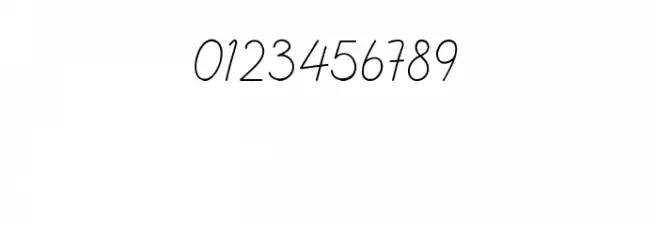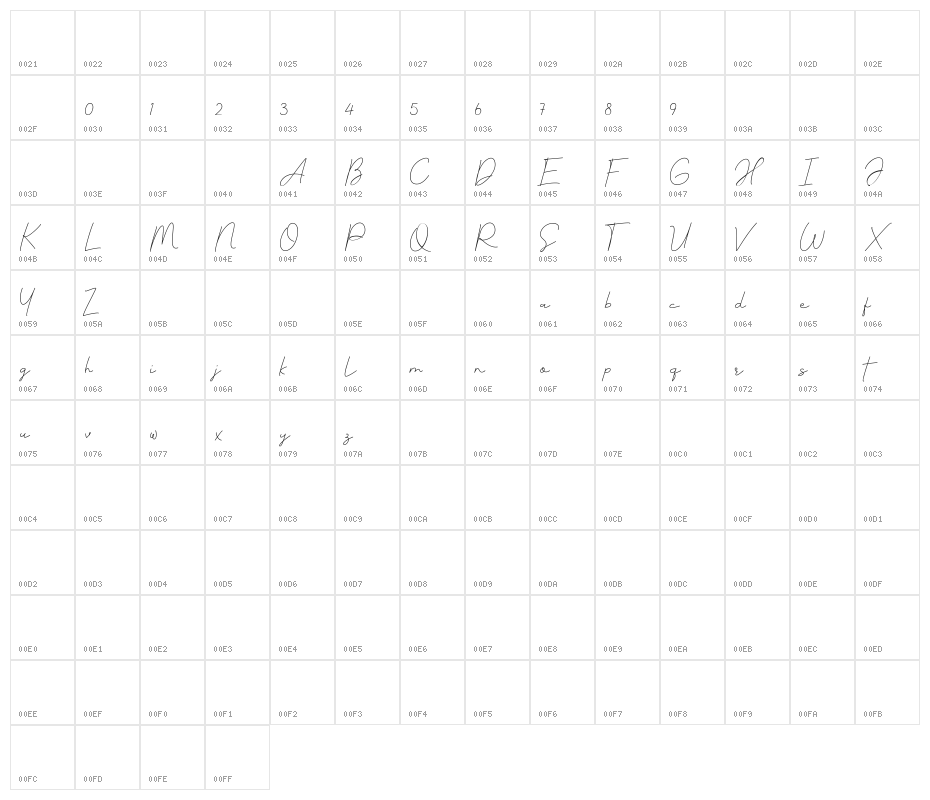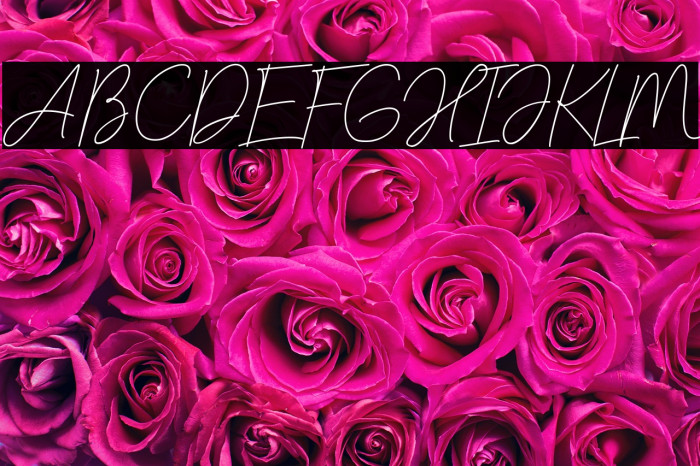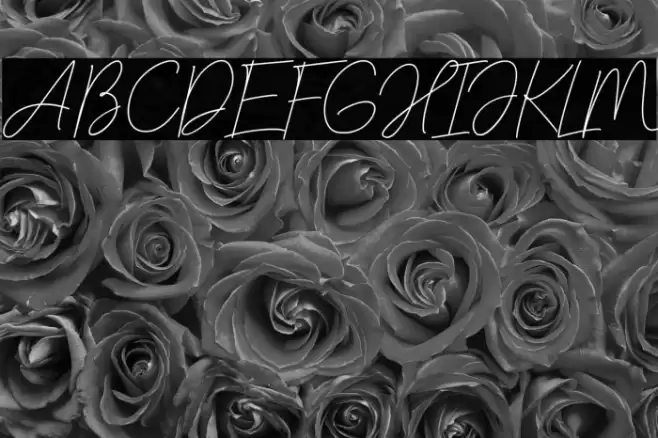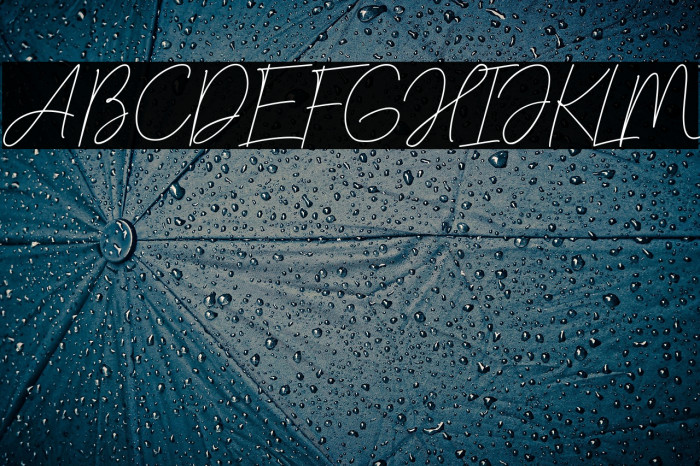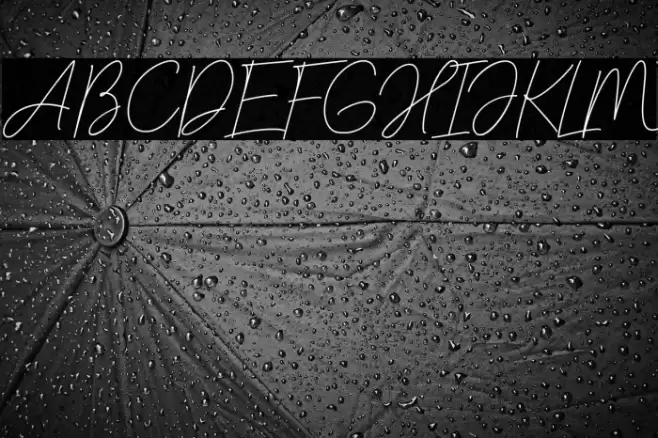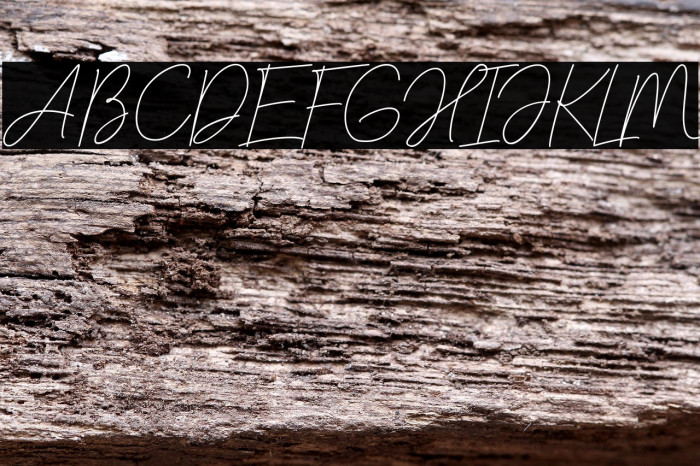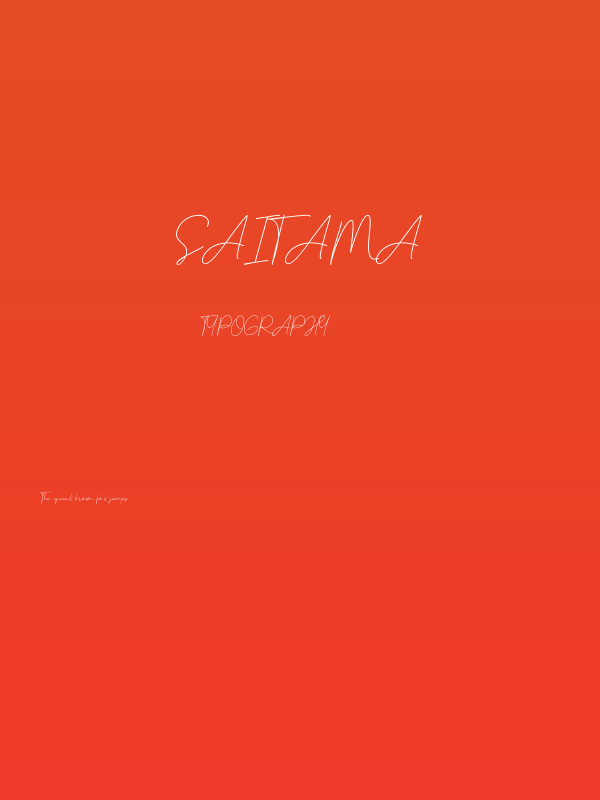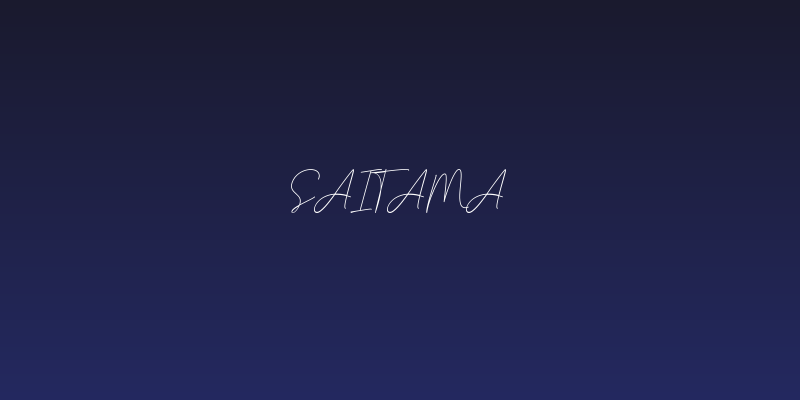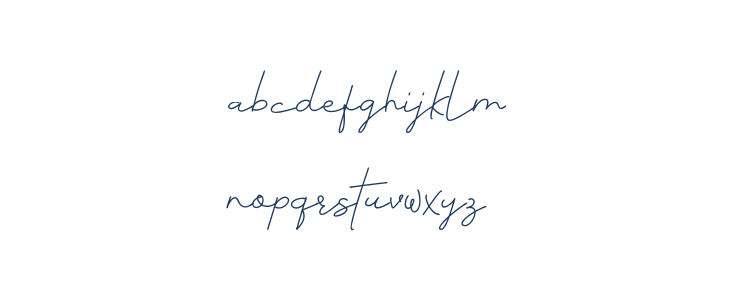
saitama Font
saitama Description
This font features a delicate, handwritten style with a flowing, cursive appearance. The uppercase letters are elegantly elongated with smooth, sweeping curves, while the lowercase letters maintain a consistent, fluid motion that mimics natural handwriting. The numerals are simple yet stylish, complementing the overall aesthetic. The font's thin strokes and graceful loops give it a sophisticated and airy feel, making it ideal for projects that require a personal touch. Its unique character shapes and gentle slant add to its charm, making it suitable for a variety of creative applications.
| Overall Style | Elegant, Artistic |
| Proposed Projects | Ideal for wedding invitations, greeting cards, personal branding, and artistic projects. |